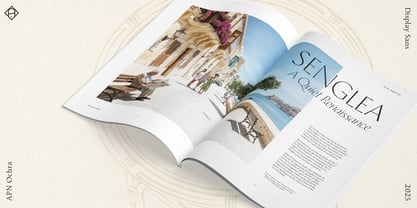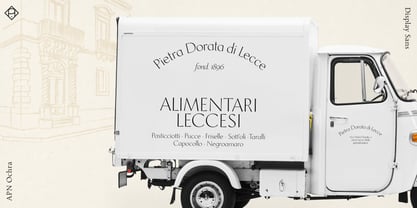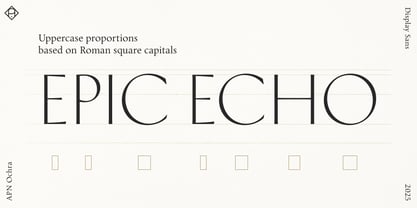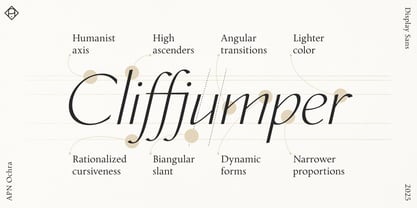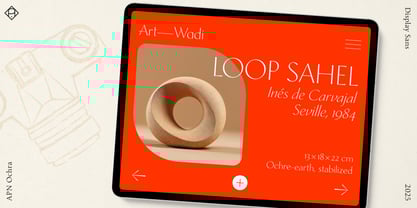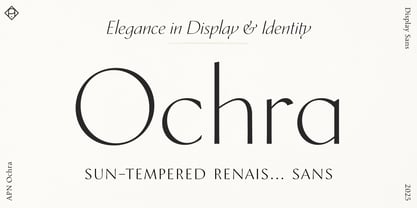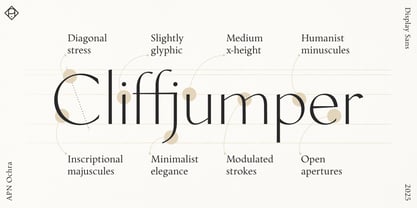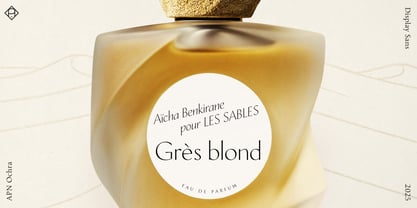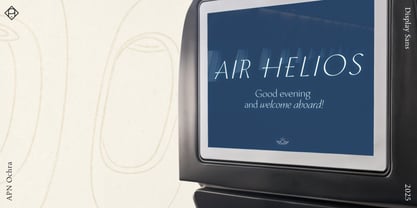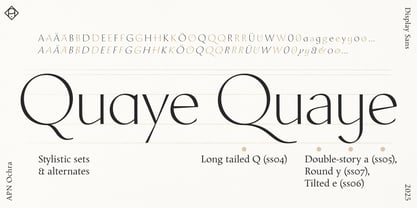
Introducing APN Ochra: a slender, sun-baked display and titling companion to APN Chora, with a subtle glyphic touch and a nod to earlier Quattrocento Florentine letterforms, illustrating the cyclical nature of cultural revivals.
Modulated rather than monolinear, APN Ochra marries inscriptional traits with the broad-nib logic and pronounced diagonal stress of APN Chora. A lowered x-height permits generous ascenders, while subtle irregularities lend natural elegance. The capitals echo imperial Roman proportions, while the lowercase draws from open, rounded Renaissance forms, and the italic employs a bi-angular slant for gentle dynamism.
Though conceived for titling and display, APN Ochra is fully equipped for versatility: it includes lowercase, small caps, multiple figure sets, fractions, stylistic sets and alternates, fine ligatures, case-sensitive forms, mathematical symbols, and more—all with extensive Latin-script language support.
APN Ochra’s distinctive, expressive voice brings clarity, contrast, and grace to headlines, logomarks, and identity work, extending the APN Chora family while remaining true to its principles.
A Humanist Display Sans with Matching Italic
It’s easy to assume that sans-serif typefaces are a recent invention. Early European printing began with blackletter, Gutenberg’s textura, and soon shifted toward the serifed types cut by the humanists of Venice in the 1470s. Only with industrialization in the early 19th century did foundries begin issuing sans-serif typefaces, while widespread use in continuous text arrived with twentieth-century modernism—at the dawn of our present era.
Yet, beyond printing types, the serif-less letter is the older model. Not only are these the letters many of us first learn in school, but they are also the ones at the very roots of our alphabet. In the western Greek and Etruscan traditions, surviving inscriptions show simple lapidary strokes rather than standardized serifs. The crisp terminals of Roman imperial capitals were codified later, often explained as the result of brush preparation before carving or of established chiseling conventions. Serif-less forms belong to the earliest layer of Western letterforms.
In this lineage, before the full scholarly revival of Roman imperial capitals took hold on the Italian peninsula, fifteenth-century Florence produced a distinct vein of sans-serif epigraphy—the Florentine inscriptions of the early-humanist Quattrocento.
The Place Before the Moment
One could call APN Ochra a contemporary interpretation of a Quattrocento Florentine sans-serif, echoing slender, lightly contrasted, slightly glyphic strokes and a certain unadorned elegance of that tradition.
However, I don’t imagine APN Ochra as polished marble inscriptions on Renaissance buildings or in cool Florentine tombs. I picture it instead as dusty, sun-baked carving in rough stone—sand-worn surfaces toned from pale yellow to reddish brown, hence the name Ochra—somewhere along the Mediterranean coasts of Europe, Africa, or the Levant.
I also don’t envision APN Ochra as tied to a specific period; it speaks more to a region than to a date—an expression of place rather than time. And if it suggests natural chic—casual elegance and organic warmth—or high fashion; if it evokes the decorative functionalism of interbellum modernism or the postwar optimism of the Trente Glorieuses—that is precisely the point: these are associations, not coordinates—the typeface belongs to no single moment.
From Chora to Ochra
Ochra is, not by chance, an anagram of Chora. APN Ochra is a sun-tempered, expressive sans-serif titling and display companion to APN Chora. In structure and principle, APN Ochra is based on the old-style of APN Chora. It builds on its forms and aligns with many of its metrics. It preserves its pronounced twenty-degree stress and translates the logic of its serifs into terminals and finials. The tapering strokes of APN Ochra are Florentine, but the uppercase proportions are imperial Roman, while the lowercase—including the italics—follows the skeletal armature of APN Chora’s model.
The historical positioning of APN Ochra presents an intriguing paradox. Compared with its foundation, APN Chora, APN Ochra reaches further back in time in some respects. The uppercase forms seen in Florentine sans-serif inscriptions mark a transition away from medieval Romanesque habits and toward the later classical revival of Roman capitals. But they fell out of fashion around the advent of the first roman types for the press, which in turn referenced the older imperial capitals. Thus, in some respects, APN Ochra’s forms are simultaneously newer and older than those of APN Chora—an instance of typography’s cyclical revivals.
Stroke and Structure
APN Ochra synthesizes two strands: Florentine sans-serif epigraphy (for tapered strokes and glyphic, slightly flared terminals) and APN Chora’s old-style, broad-nibbed logic (for calligraphic diagonal stress and lowercase forms). With its apparent thick–thin modulation, it can be classified as a humanist, stressed, or contrast sans-serif.
There are surprisingly few typefaces that walk this hybrid line. Optima by Hermann Zapf comes to mind, as does Stellar by Robert Hunter Middleton. More recent references include the Florentine Set by Paul Shaw and Garrett Boge—and, above all, Joachim Romann’s Romann-Antiqua.